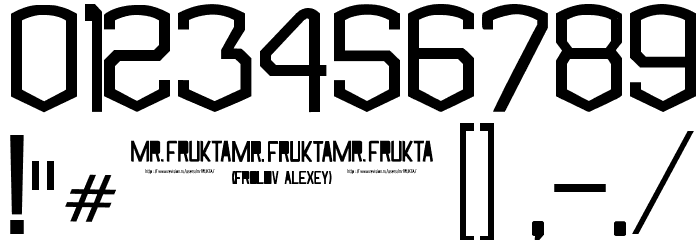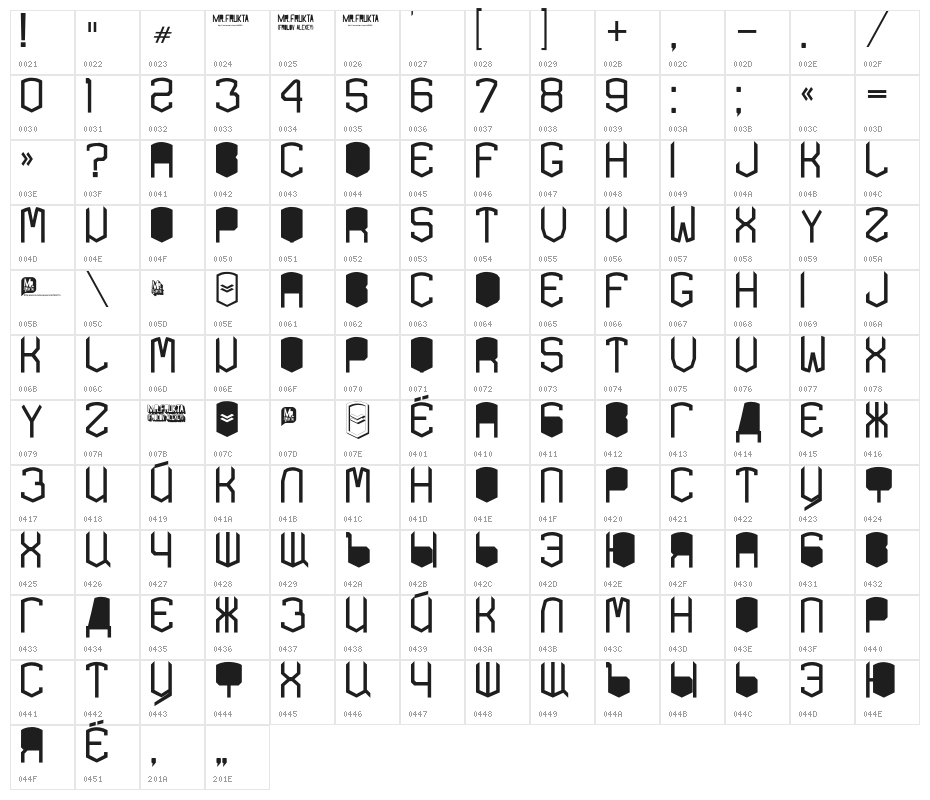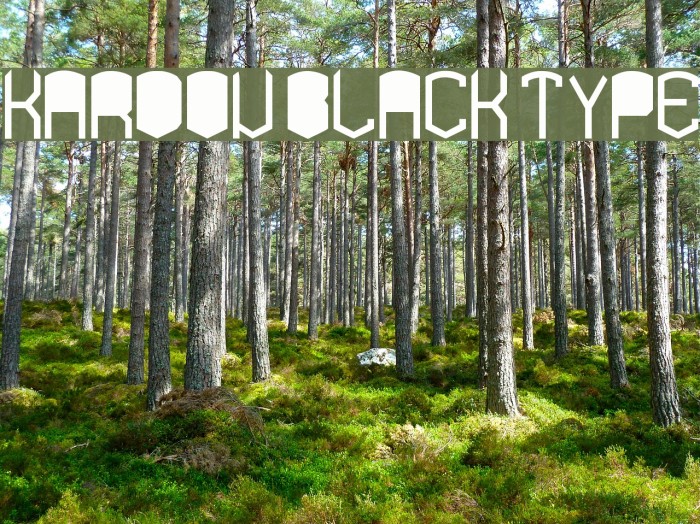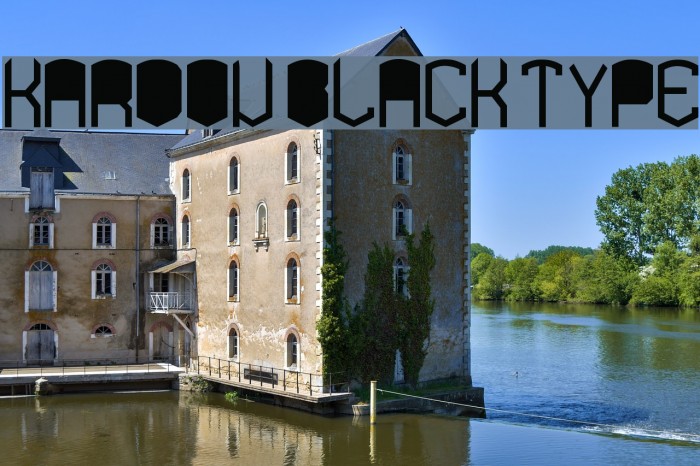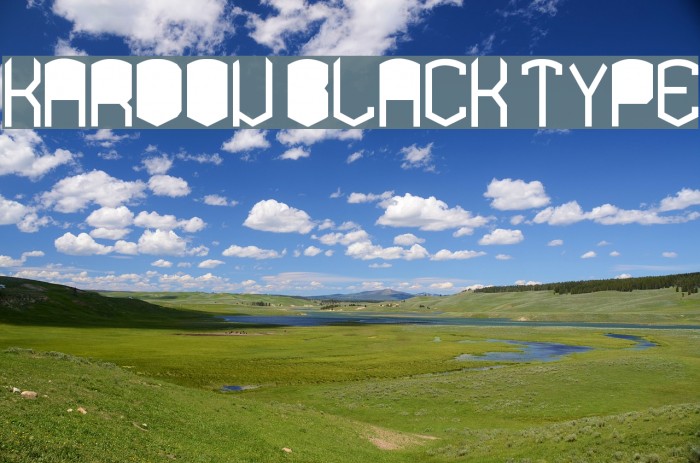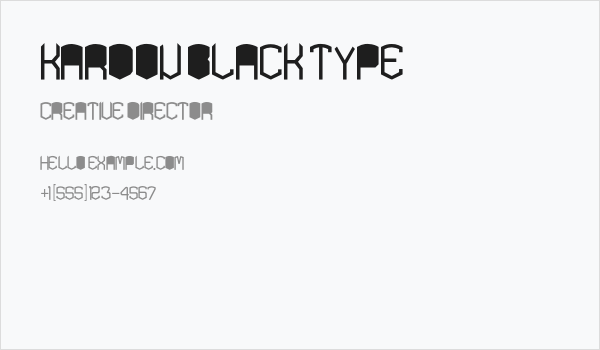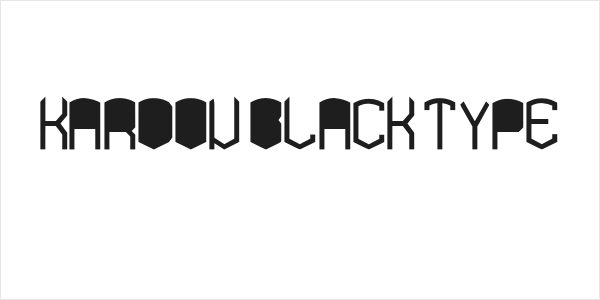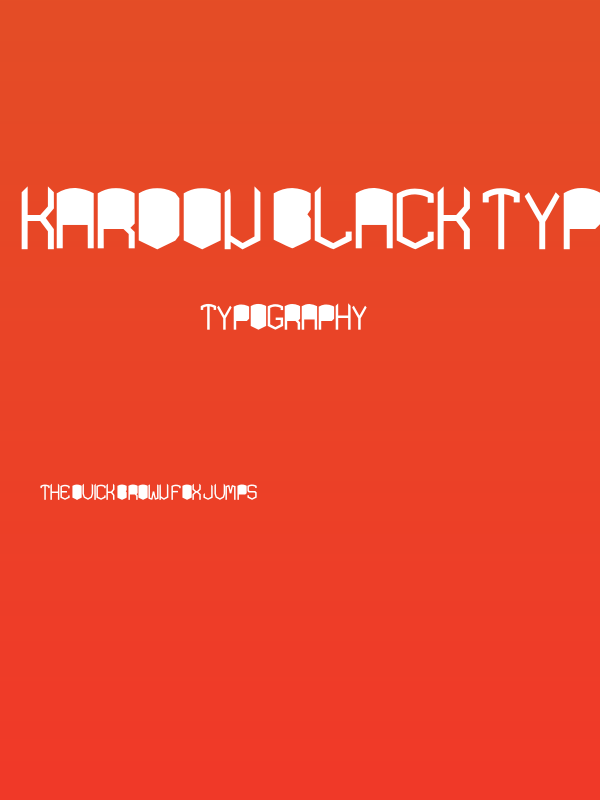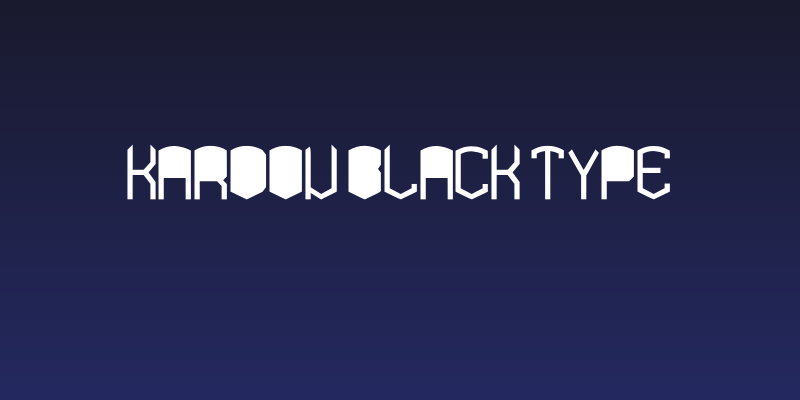
KARDON black TYPE Font
KARDON black TYPE Description
This font features a bold and geometric design with a modern and futuristic aesthetic. The uppercase letters are characterized by their angular and blocky shapes, creating a strong visual impact. The lowercase letters maintain a similar style, ensuring consistency throughout the typeface. The numbers are equally bold and geometric, complementing the overall design. The special characters are designed to match the boldness and angularity of the letters and numbers. This font is ideal for projects that require a strong and modern look, such as branding, posters, and headlines.
| Proposed Projects | Ideal for branding, posters, headlines, and any project needing a strong, modern aesthetic. |